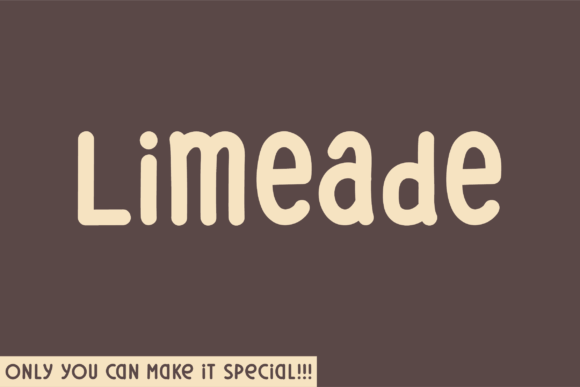
Dive into the world of Limeade Font, a remarkable sans serif creation by Hanna Bie specifically designed to bring a dash of charm to your creative endeavors. This exquisite font family captivates with its natural flow, crafted without altering a single node in each character's indentation, resulting in a visually captivating and distinctive aesthetic. Step into a realm of infinite possibilities, where Limeade Font stands ready to transform your words into works of art.
Unleash your creativity and let Limeade Font dance across your designs, effortlessly adding a touch of whimsy and delight. Perfect for adorning heartfelt quotes, jotting down precious notes, or creating eye-catching tees and product designs, Limeade Font is the ultimate choice for those seeking a font that sparks joy and captures the essence of life's sweetest moments. Let your imagination run wild as you explore the endless possibilities that await you with Limeade Font, your trusty companion in the realm of design and self-expression.
As you delve deeper into the world of Limeade Font, discover its versatility that knows no bounds. With its ability to effortlessly adapt to a myriad of design styles, Limeade Font seamlessly blends into any project, adding a touch of magic and individuality. Whether you're crafting heartwarming baby announcements, designing playful invitations, or creating enchanting logos, Limeade Font possesses the remarkable ability to elevate your creations, leaving a lasting impression on all who encounter it.
But what truly sets Limeade Font apart is its emotional resonance. Each letterform is imbued with a sense of warmth and playfulness, inviting viewers to embark on a journey of imagination and discovery. With Limeade Font as your guide, transform ordinary designs into extraordinary expressions that speak to the heart and capture the essence of life's most cherished moments.
So, dear creative soul, embrace the allure of Limeade Font and embark on a typographic adventure like no other. Let your designs blossom with joy, uniqueness, and boundless creativity as you harness the power of this captivating font. Step into the enchanting world of Limeade Font today and unlock a realm of endless possibilities.